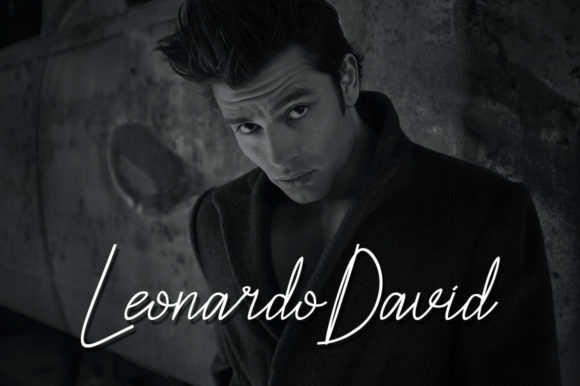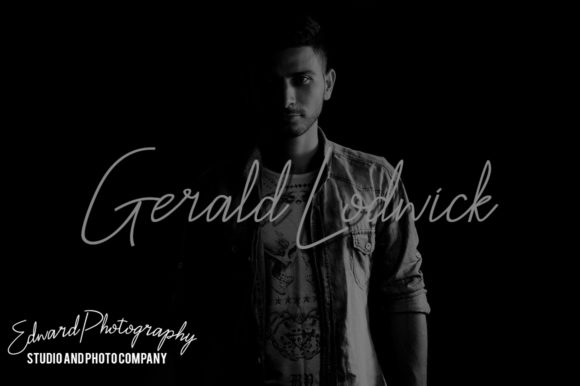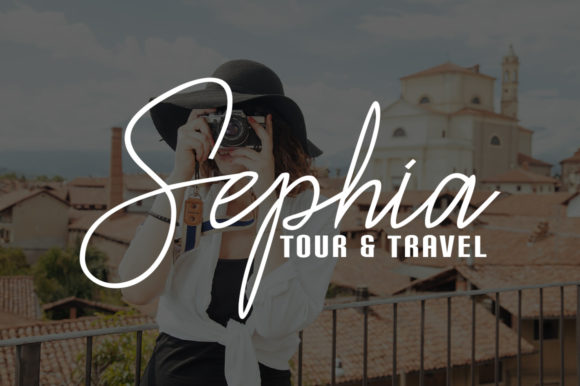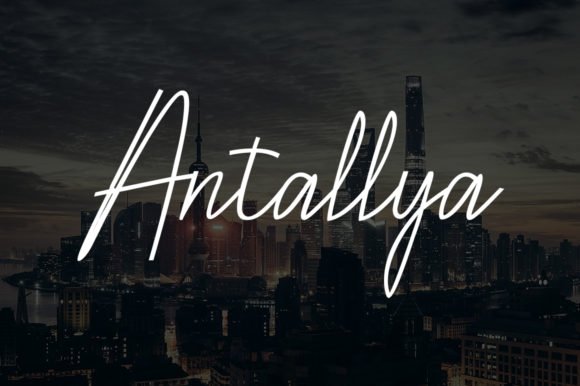
Introduction to Antallya Font
Antallya is an exquisite handwritten font, masterfully designed to become a true favorite.
Key Features of Antallya Font